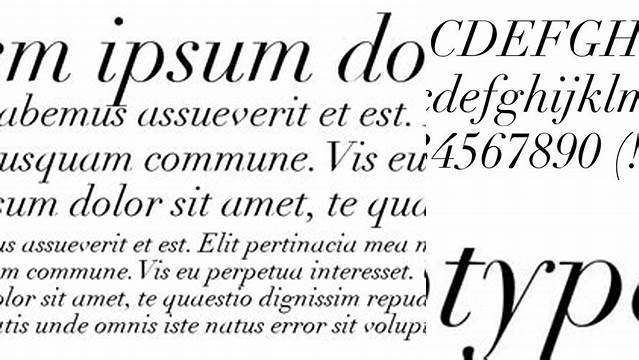
Hey guys, ever found yourself drooling over those super elegant, high-contrast serif fonts you see in fashion magazines or luxury brand ads? Chances are, you’ve stumbled upon something very much like Linotype Didot Italic. It’s a true icon in the design world, famous for its sophisticated flair, delicate serifs, and the way it just screams class. Now, the big question many of you probably have is, "Can I get a Linotype Didot Italic font free download?" And honestly, that’s a quest many designers, both pros and hobbyists, embark on. While the idea of a completely free, legitimate Linotype Didot Italic font can be a bit of a unicorn, we’re here to break down everything you need to know about this gorgeous typeface, how to find it, what to look out for, and how to use it responsibly in your projects. We're going to dive deep, so buckle up and get ready to elevate your typography game!
The Allure of Didot Italic Fonts: A Deep Dive
When we talk about the allure of Didot Italic fonts, we’re really talking about a typeface that embodies elegance, luxury, and a kind of timeless sophistication that few other fonts can rival. Seriously, guys, just look at it! Its dramatic contrast between thick and thin strokes, those perfectly sharp serifs, and its upright, yet flowing, italic posture—it all comes together to create something truly breathtaking. This isn't just any old font; it's a statement piece. Designers are constantly on the hunt for fonts like this because they add an instant touch of class to any project, whether it's a magazine cover, a high-end brand logo, or even just a personal blog header. The sheer aesthetic appeal of Didot Italic is undeniable, making it a go-to choice for anyone wanting to convey a sense of refinement and high fashion. Historically, fonts like Didot emerged during the Enlightenment, pushing the boundaries of type design with their precision and geometric structures, moving away from the more organic forms of earlier typefaces. This innovation in type design is part of its lasting legacy, influencing generations of designers and continuing to be a benchmark for classic beauty. The quest for a Linotype Didot Italic font free download stems from this deep appreciation for its beauty and historical significance. It's not just about getting a font; it's about accessing a piece of design history that still feels incredibly modern and relevant today. Understanding this inherent value helps us appreciate why finding a high-quality, legitimate version, especially a Linotype Didot Italic font free download, is such a coveted goal for so many creative minds. The unique blend of strength and delicacy in its forms allows it to command attention without being overbearing, making it perfect for headlines where impact is key, yet its legibility also permits its use in smaller applications when paired carefully. Ultimately, the allure of Didot Italic fonts lies in their ability to transform a simple design into something truly exceptional, infusing it with an air of unparalleled sophistication that designers worldwide continue to cherish and seek out.
Why Linotype Didot Italic Stands Out from the Crowd
So, you might be asking, "Why specifically Linotype Didot Italic? Aren't there other Didot versions out there?" And that's a fantastic question, because yes, there are many interpretations of Didot, but the Linotype version is often considered a benchmark for a reason. What makes Linotype Didot Italic truly stand out is its incredible precision and the careful craftsmanship that went into its digital rendition. When Linotype (now part of Monotype) digitizes classic typefaces, they don't just trace outlines; they meticulously refine every curve, every serif, and every stroke to ensure it retains the historical integrity and optical balance of the original design, while also performing flawlessly in modern digital environments. This level of detail means that the Linotype version often has superior hinting (which helps fonts look sharp on screens at various sizes), a more complete character set, and an overall polished feel that many other Didot-inspired fonts might lack. When you're searching for a Linotype Didot Italic font free download, you’re essentially looking for this particular standard of quality. It's not just about getting a font that looks like Didot; it’s about getting one that performs like a top-tier professional typeface. This distinction is crucial for designers who need their work to look crisp and professional across different mediums, from high-resolution print to sharp web displays. The optical corrections and careful spacing (kerning) applied by Linotype ensure that the typeface is highly legible and aesthetically pleasing in almost any context, which is not always the case with lesser-quality free alternatives. While a Linotype Didot Italic font free download may be hard to come by legitimately, understanding the superior quality of the Linotype rendition helps explain why it's so highly sought after. It’s the difference between a decent copy and a masterfully crafted original. This attention to detail is what allows Linotype Didot Italic to retain its iconic status and continues to make it a preferred choice for discerning designers worldwide, solidifying its reputation as a true workhorse of elegance and style in the vast world of typography. Its unparalleled clarity and sophisticated aesthetic are what truly set it apart, making it worth the effort to find a high-quality version, even if a totally free official one remains elusive.